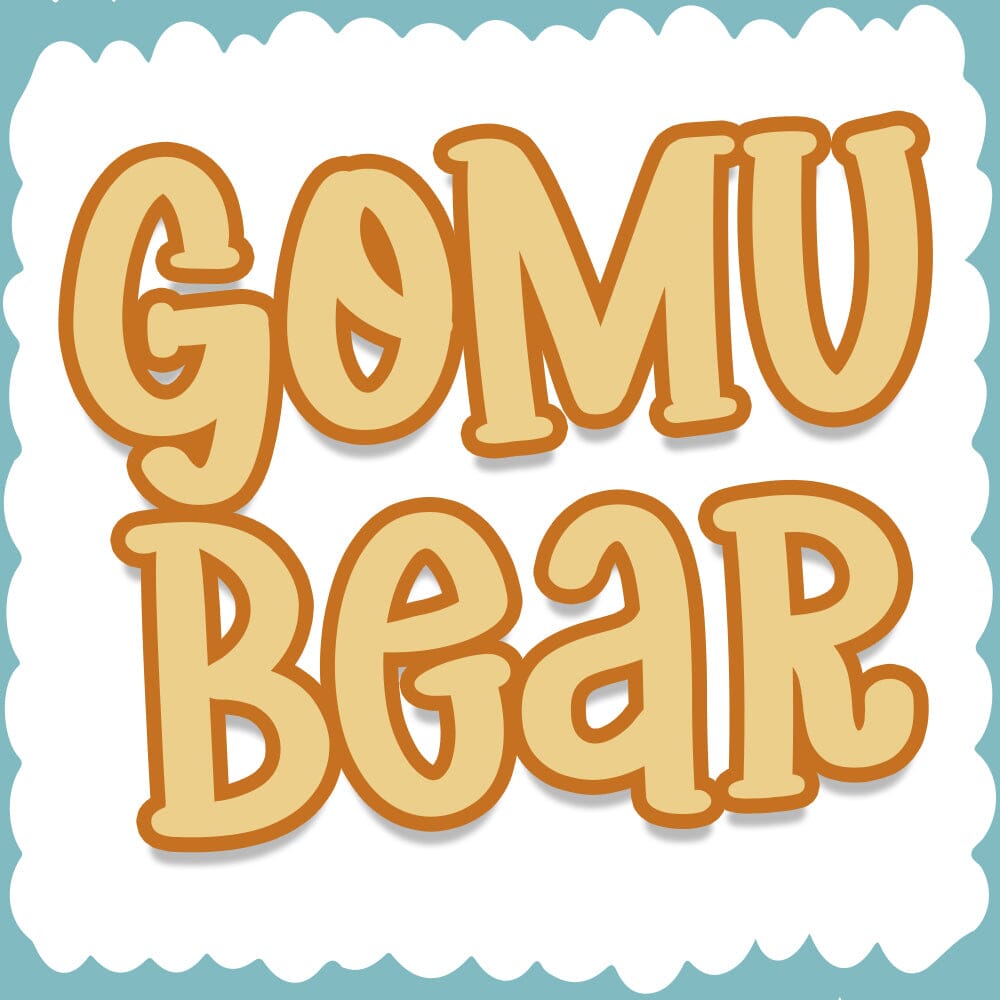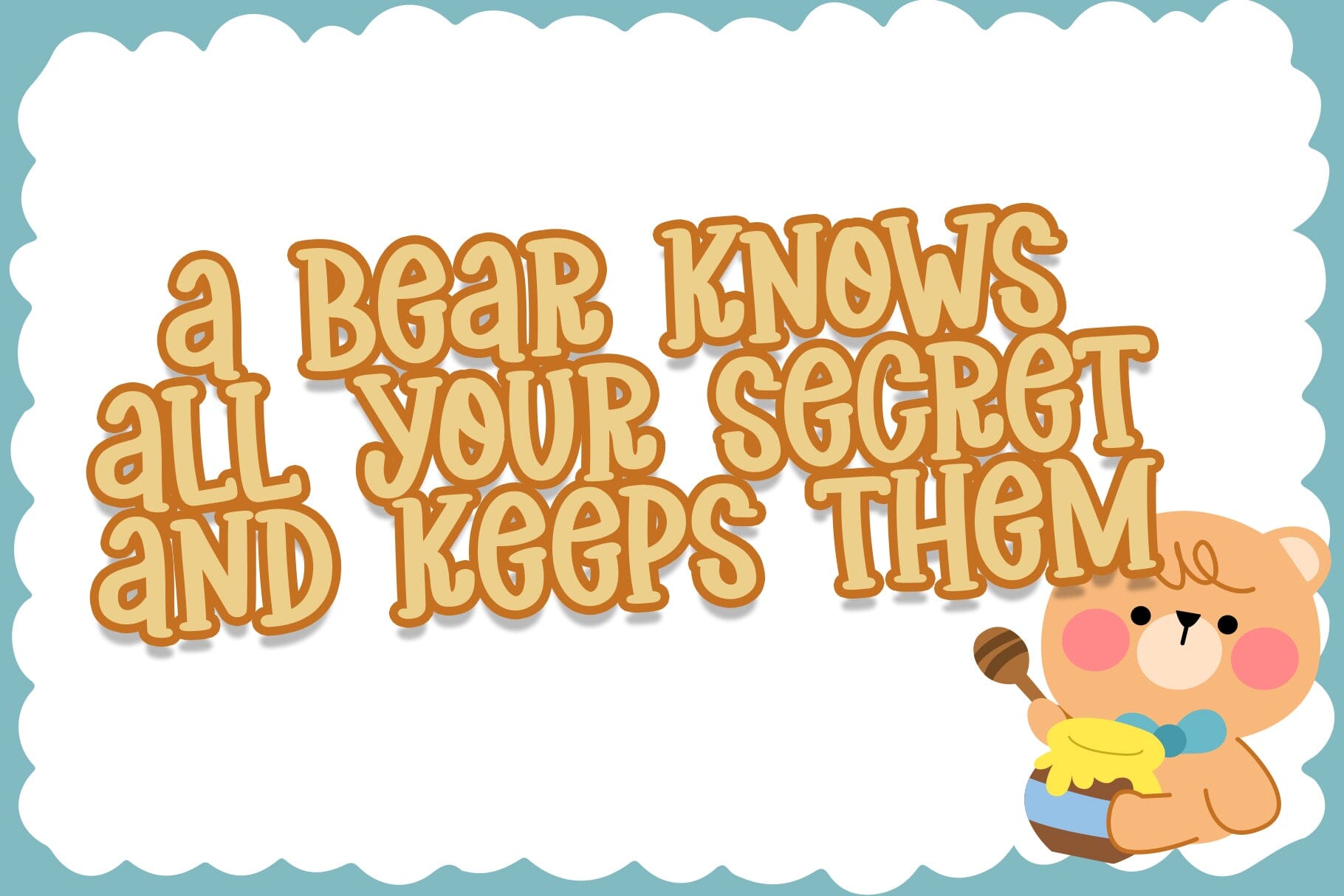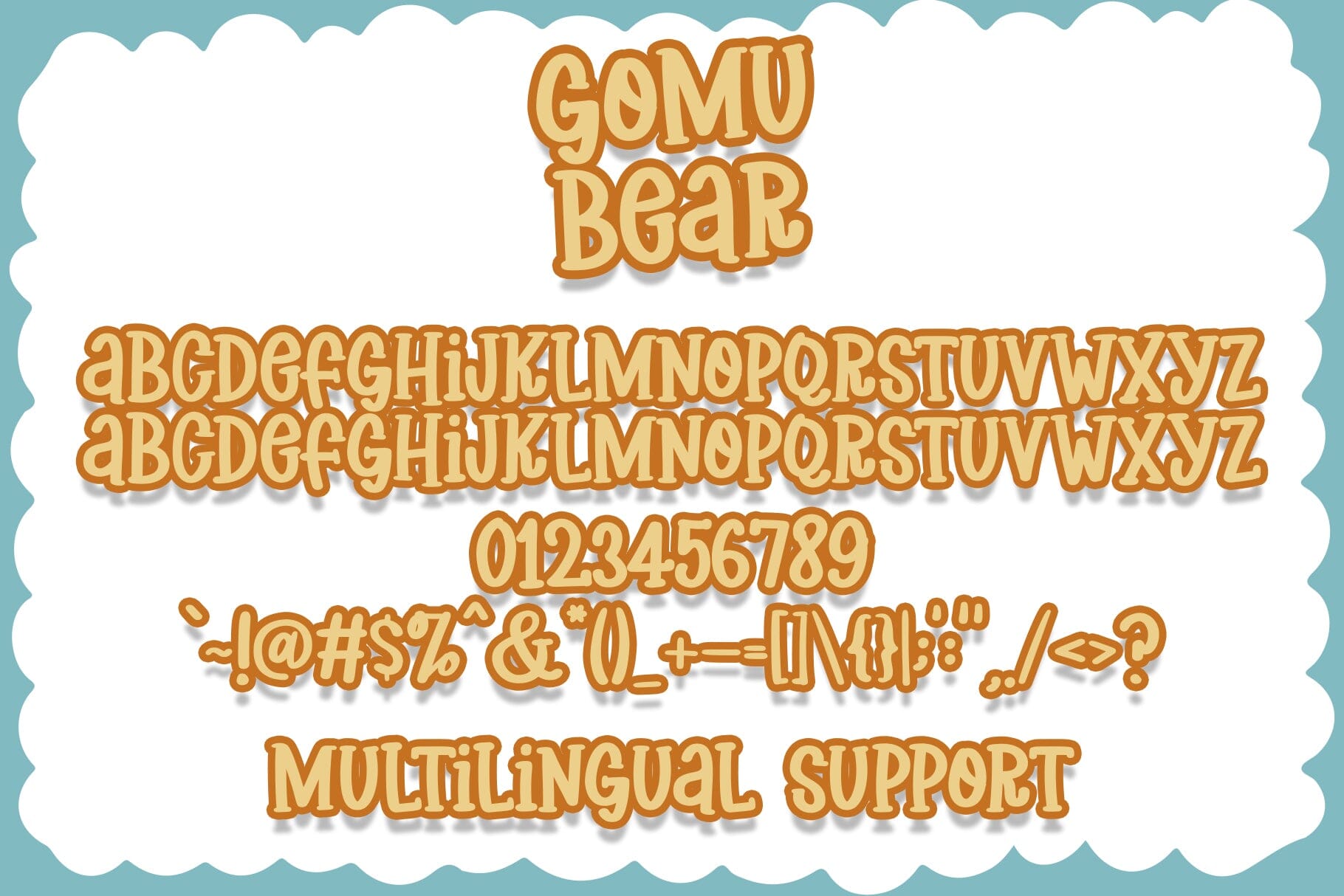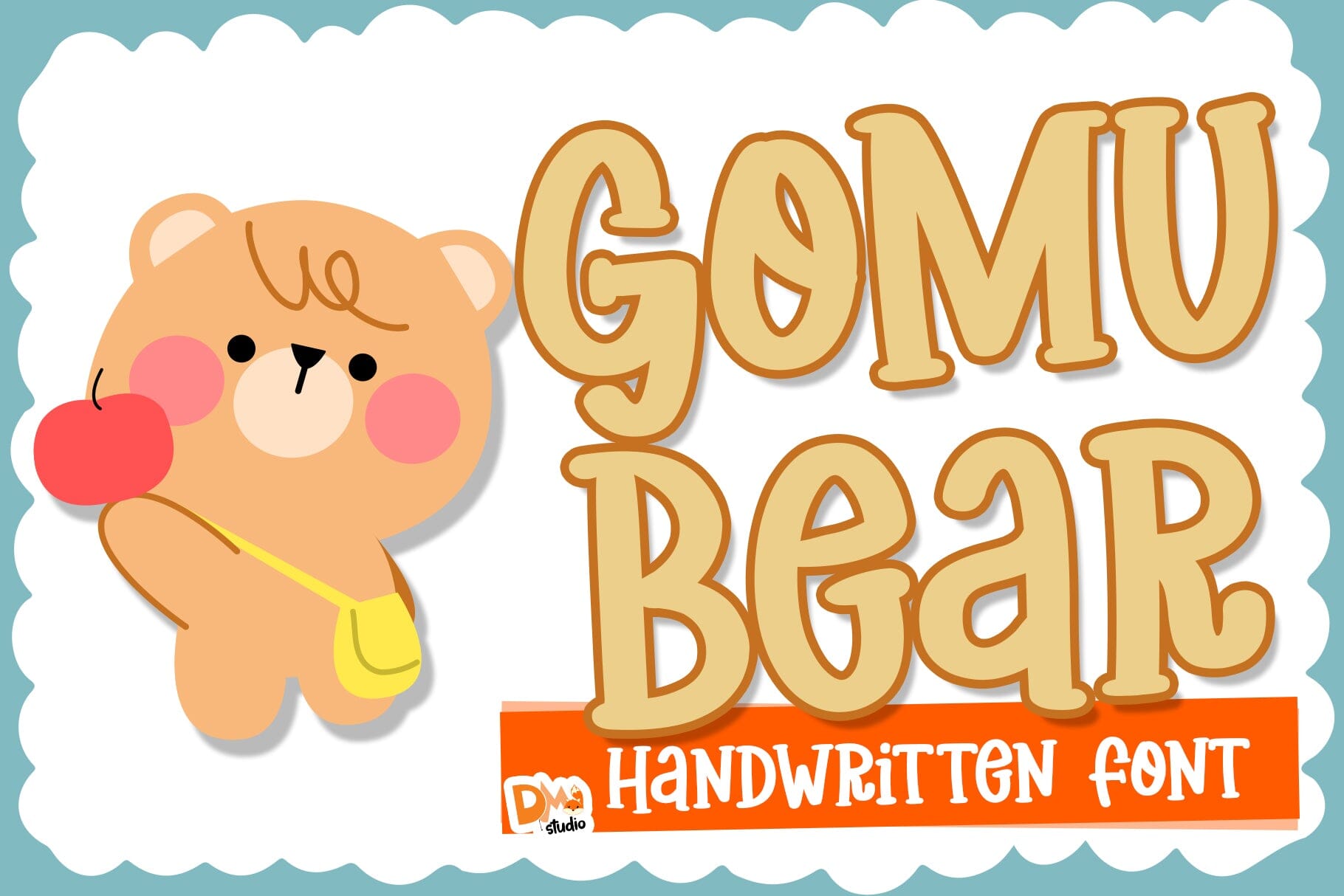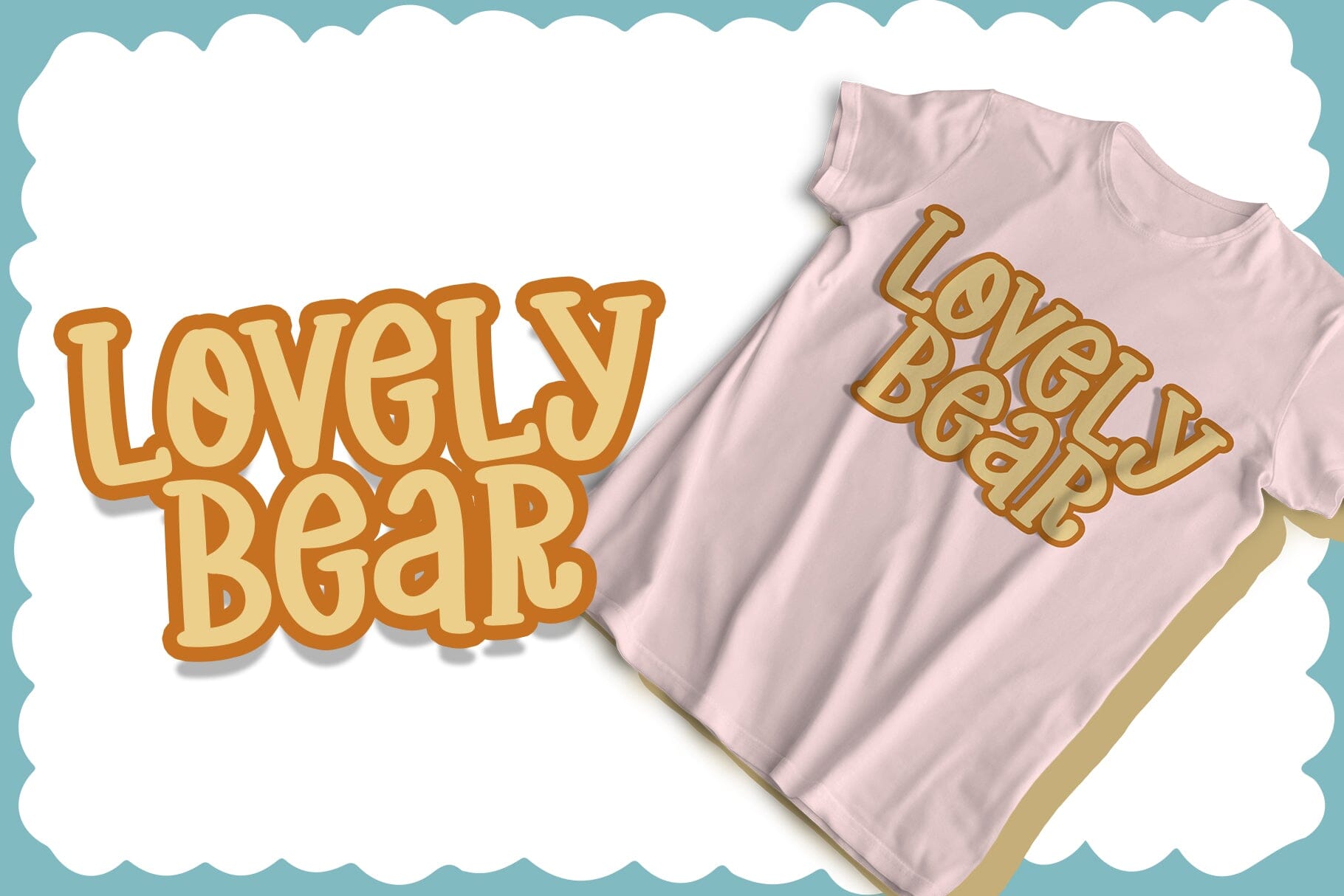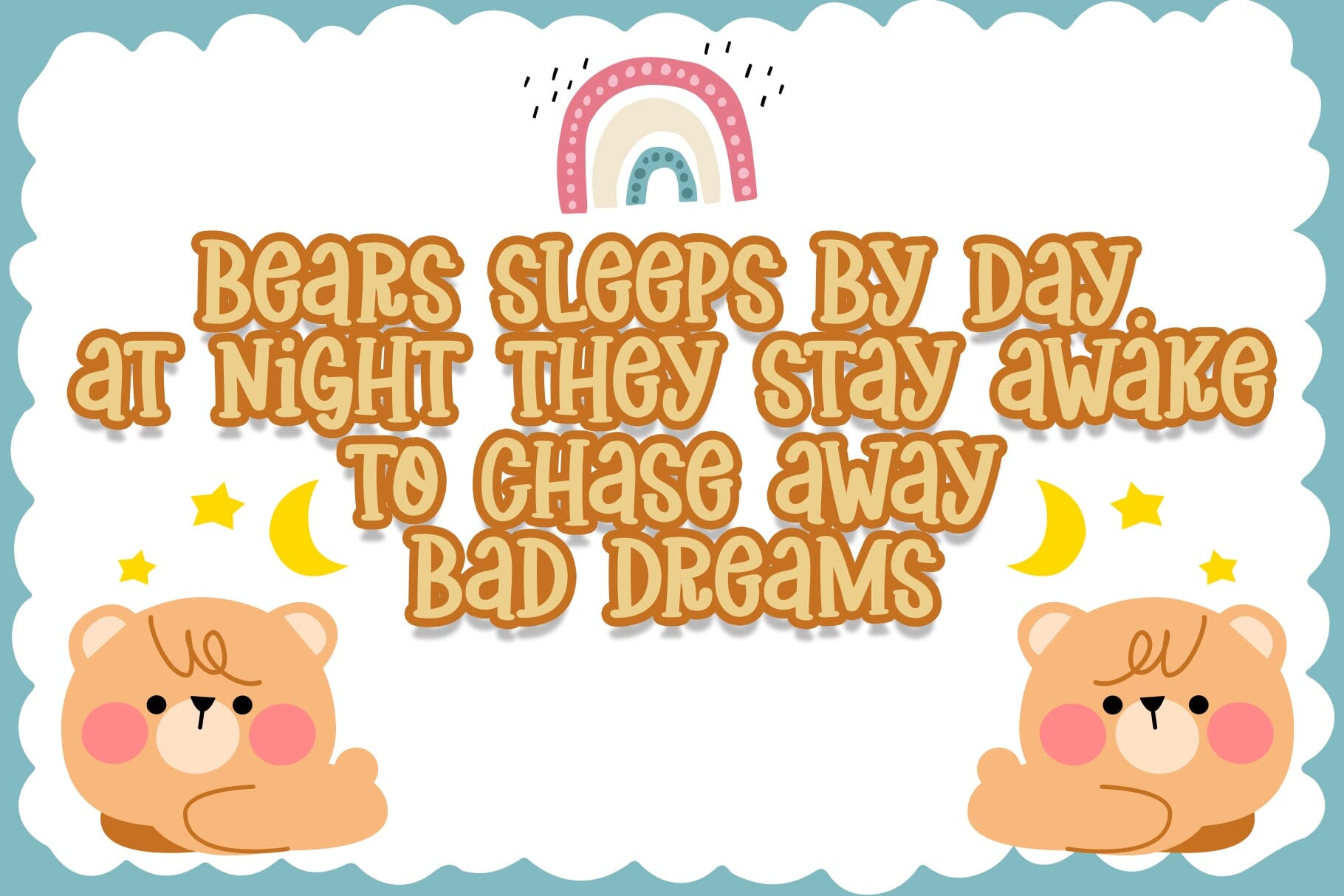
Gomu Bear Font: Bring Joyful Charm to Kids’ Designs
Why Gomu Bear Font Wins Hearts
Unlike generic playful fonts, Gomu Bear Font features hidden bear ears/paws in its characters. Perfect for:
- Children’s book illustrations
- Kindergarten classroom decor
- Toy packaging & kids’ apparel
- Birthday party invitations
Key Features & Formats
- ✅ Hidden Bear Elements: 26+ bear-themed glyphs
- ✅ Full Character Set: A-Z (upper/lowercase), numbers 0-9
5 Creative Ways to Use Gomu Bear Font
- Kids’ Book Titles: Make storybooks irresistible with bouncing bear letters
- Nursery Wall Art: Create “ABC” posters with hidden animal friends
- Party Decorations: Design cupcake toppers & banners for bear-themed birthdays
- Toy Store Branding: Craft playful logos for baby/toddler shops
- Educational Worksheets: Turn math sheets into bear-filled adventures
Designer Pro Tips
- 🎨 Color Pairing: Use #FFB6C1 (pink) + #87CEEB (sky blue)
- 🎨 Size Matters: 24pt+ for hidden bear details to shine
- 🎨 Texture Magic: Add subtle fur textures in Photoshop